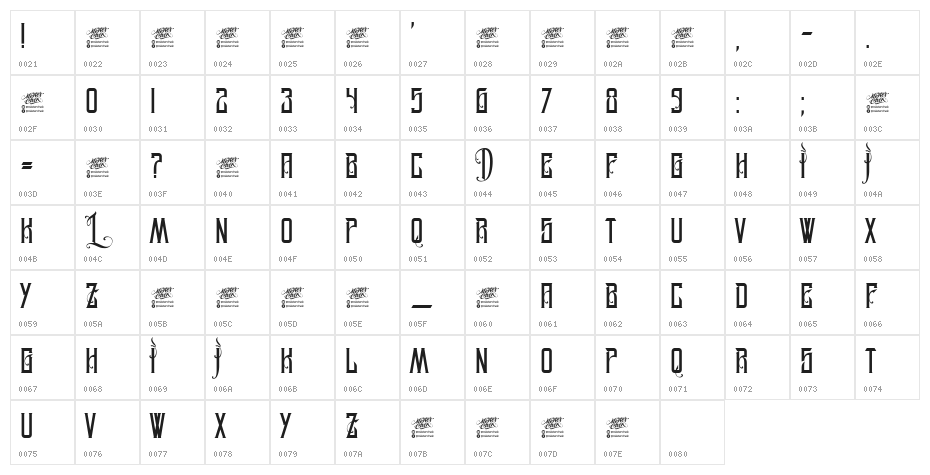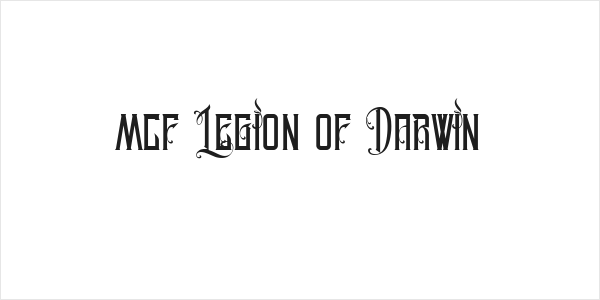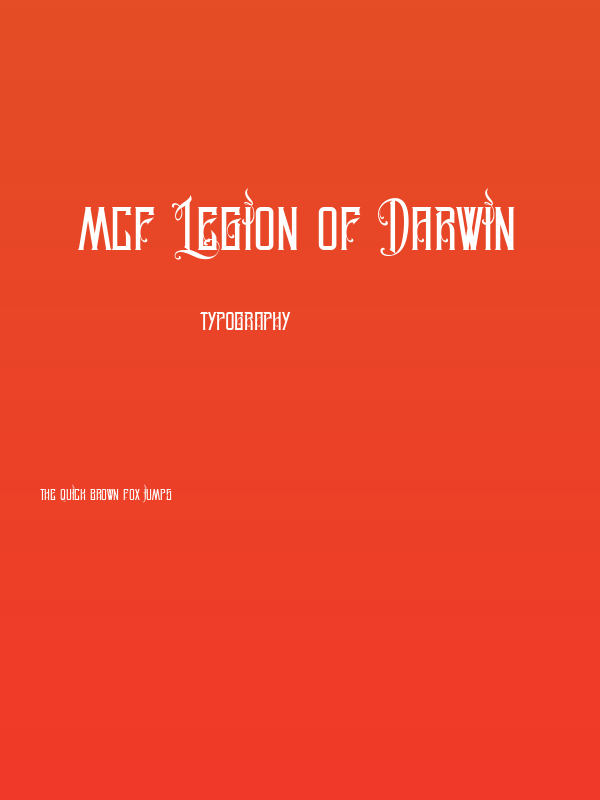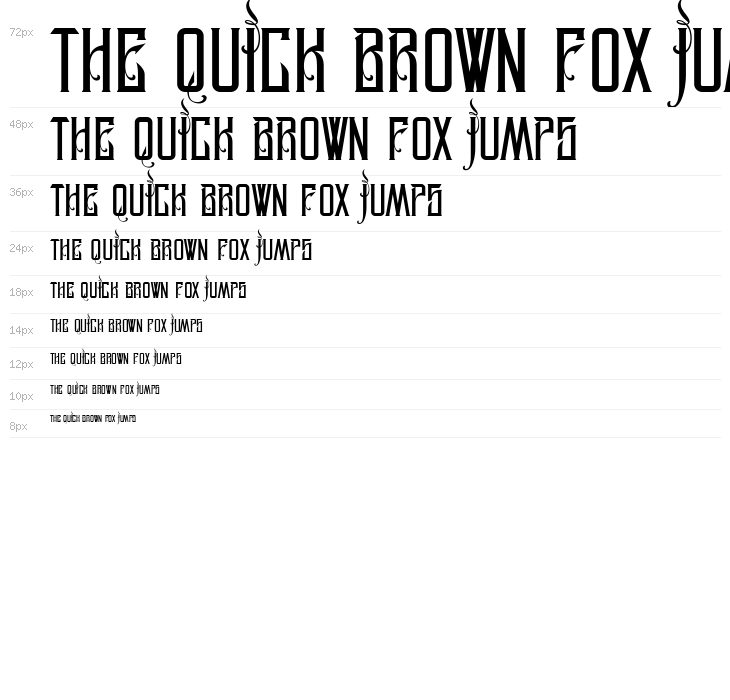
MCF Legion of Darwin Font
MCF Legion of Darwin Description
This font features a striking and elaborate design with a decorative flair. The uppercase letters are tall and narrow, with intricate flourishes that add a sense of elegance and complexity. The lowercase letters maintain the same ornate style, ensuring consistency throughout the typeface. The numbers are equally stylized, with unique curves and angles that make them stand out. Special characters are designed with the same attention to detail, making them suitable for creative and artistic projects. The overall appearance is bold and eye-catching, perfect for making a statement.
| Proposed Projects | Ideal for use in branding, posters, album covers, and any project requiring a dramatic and artistic touch. |